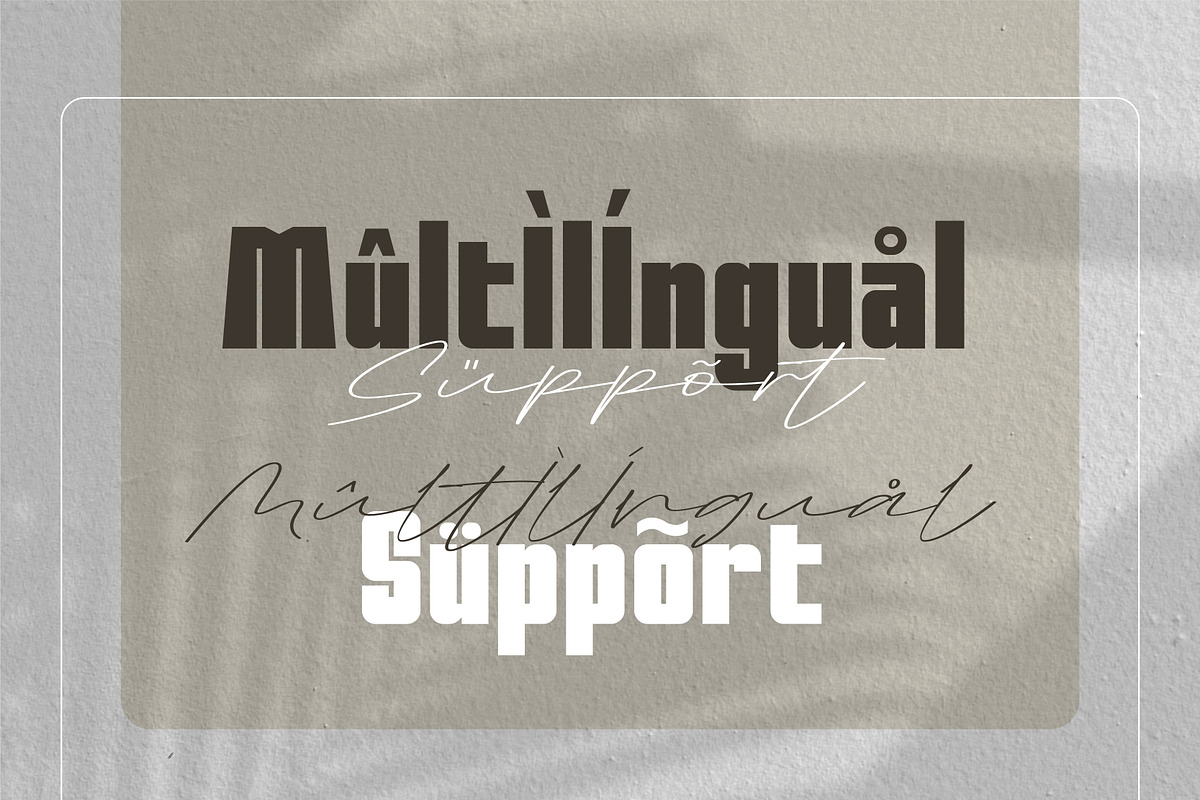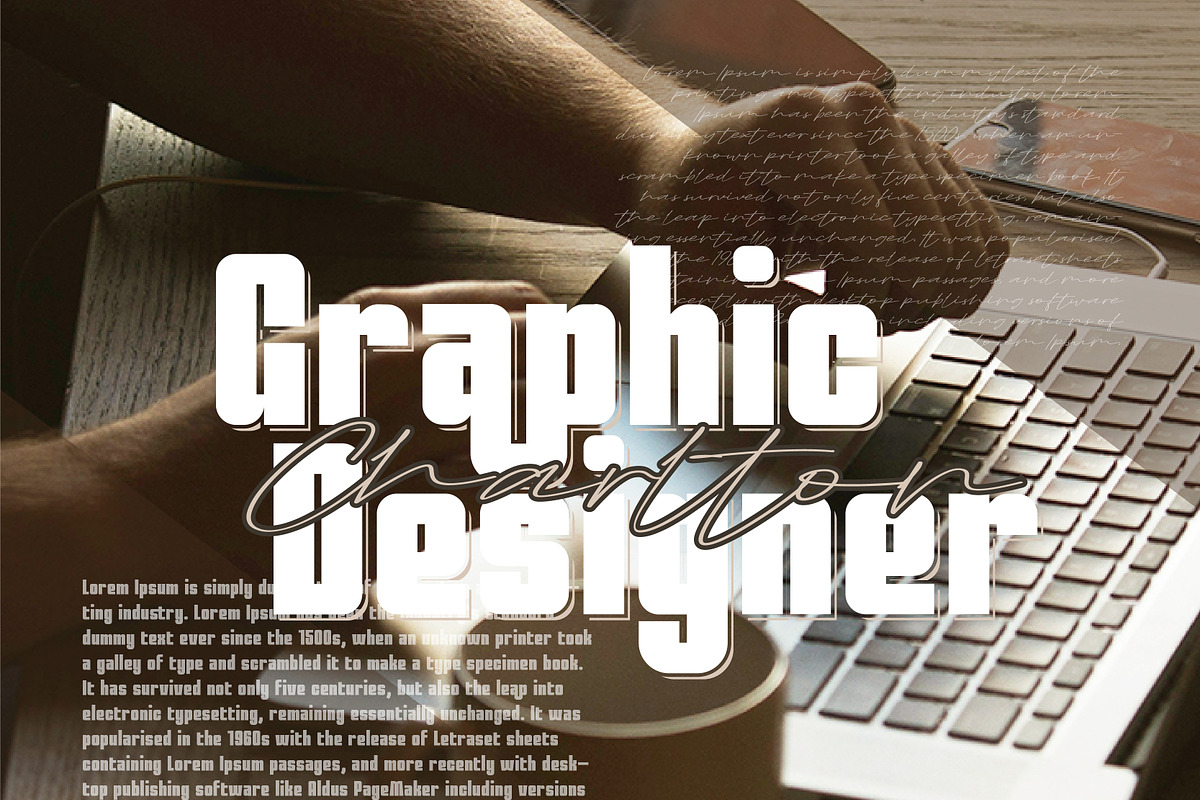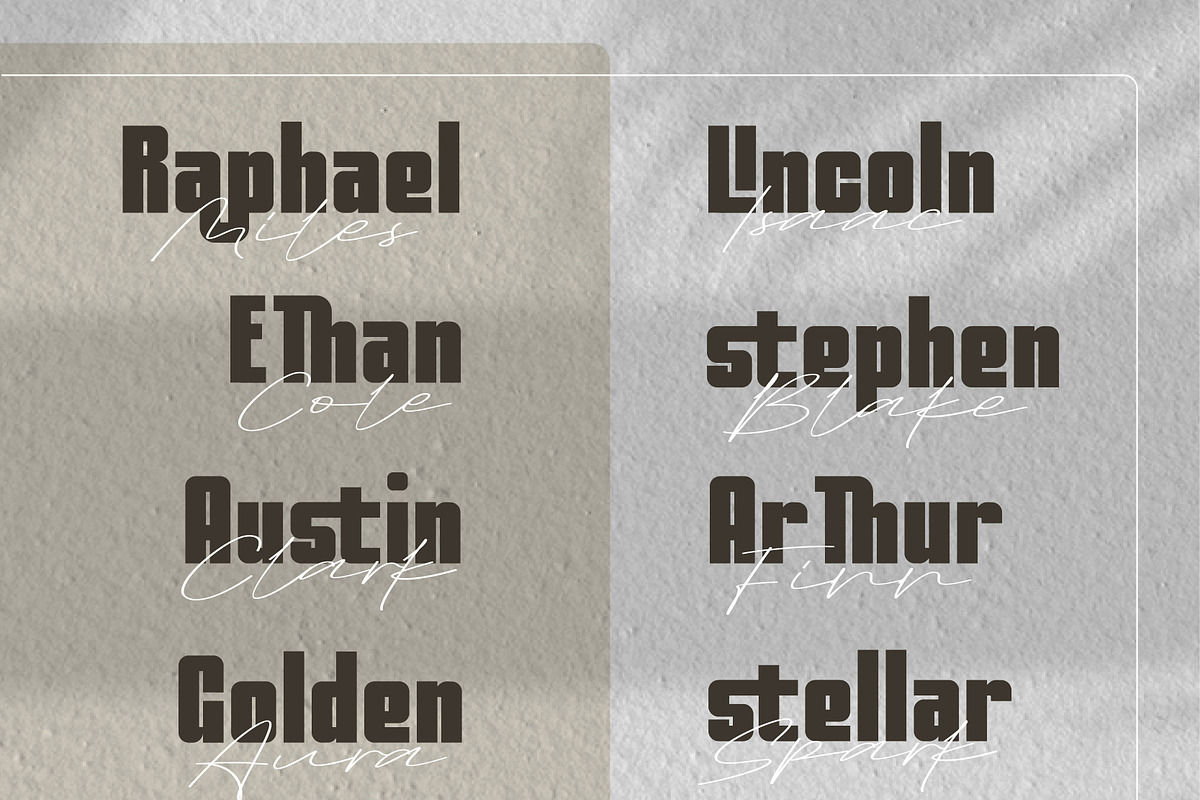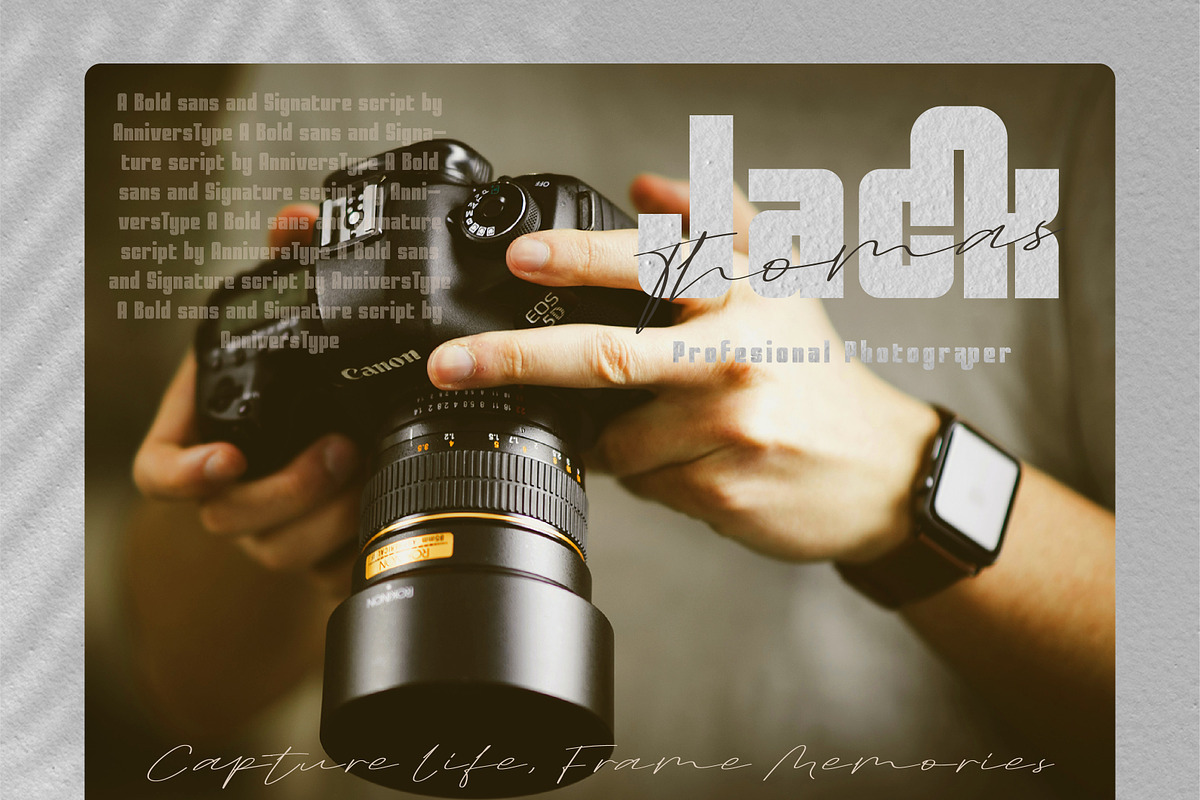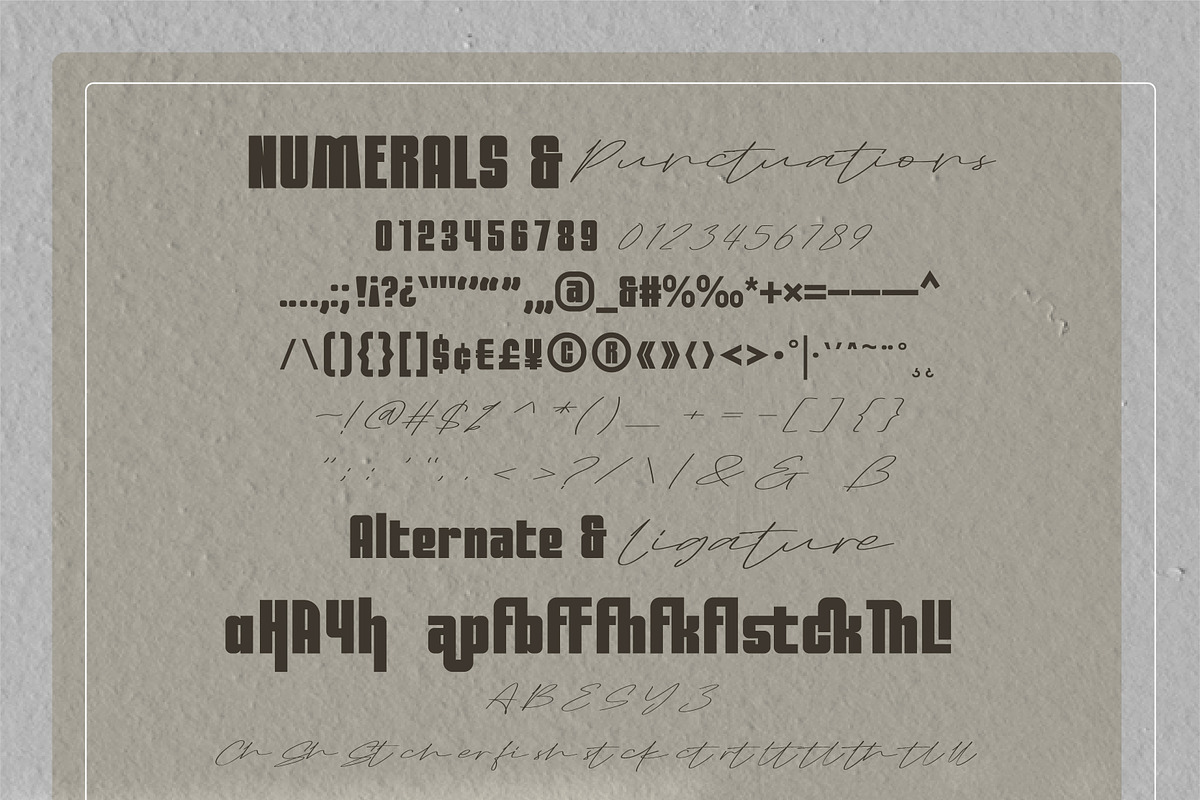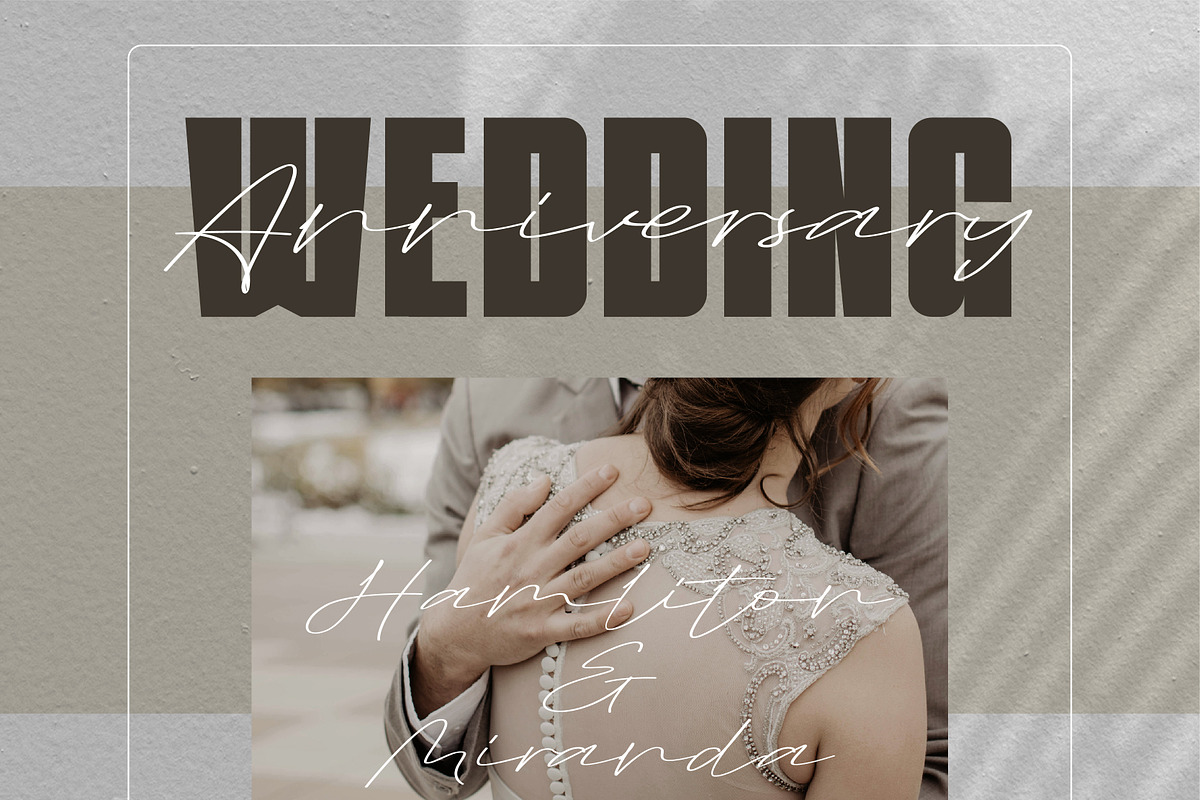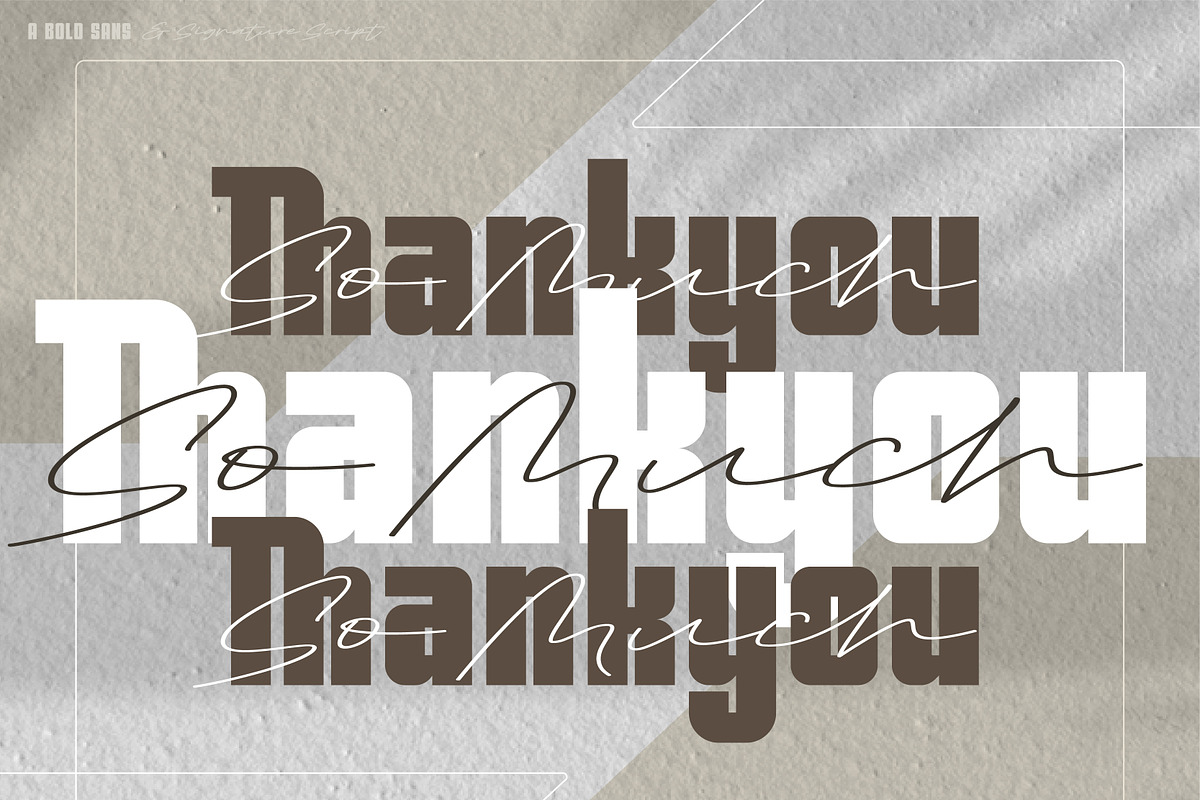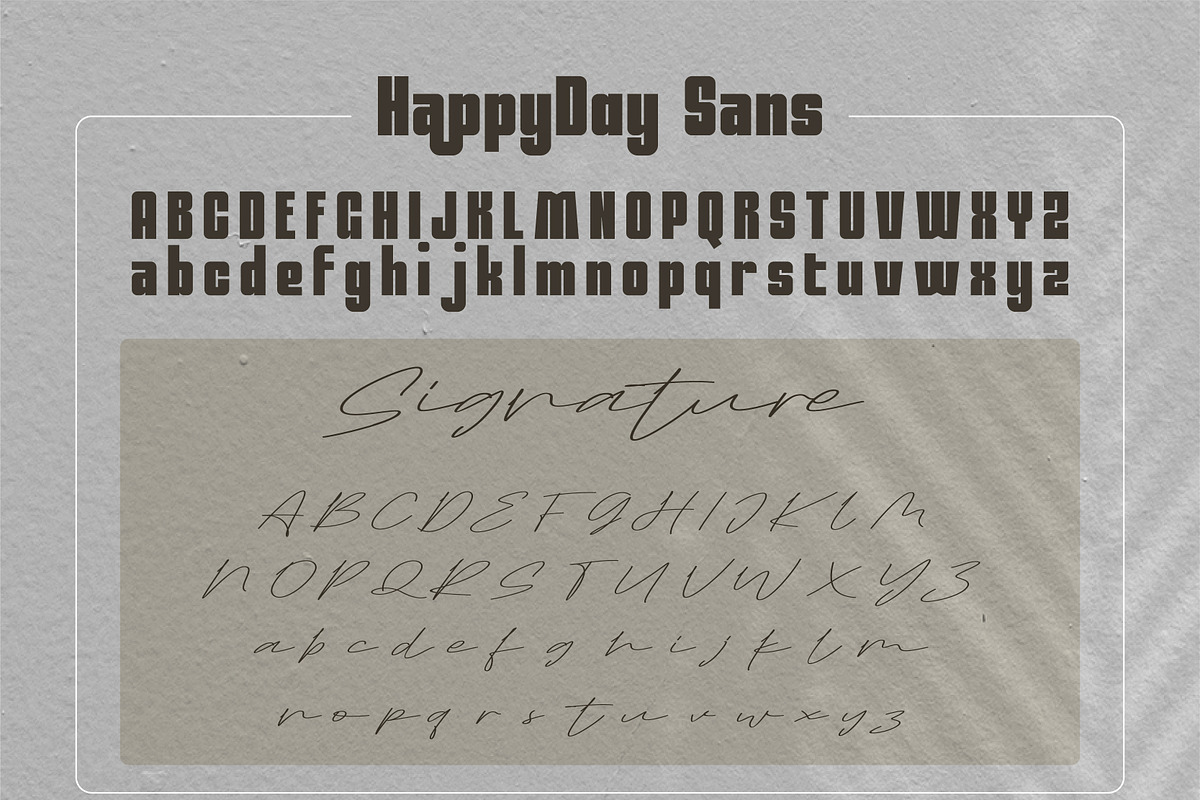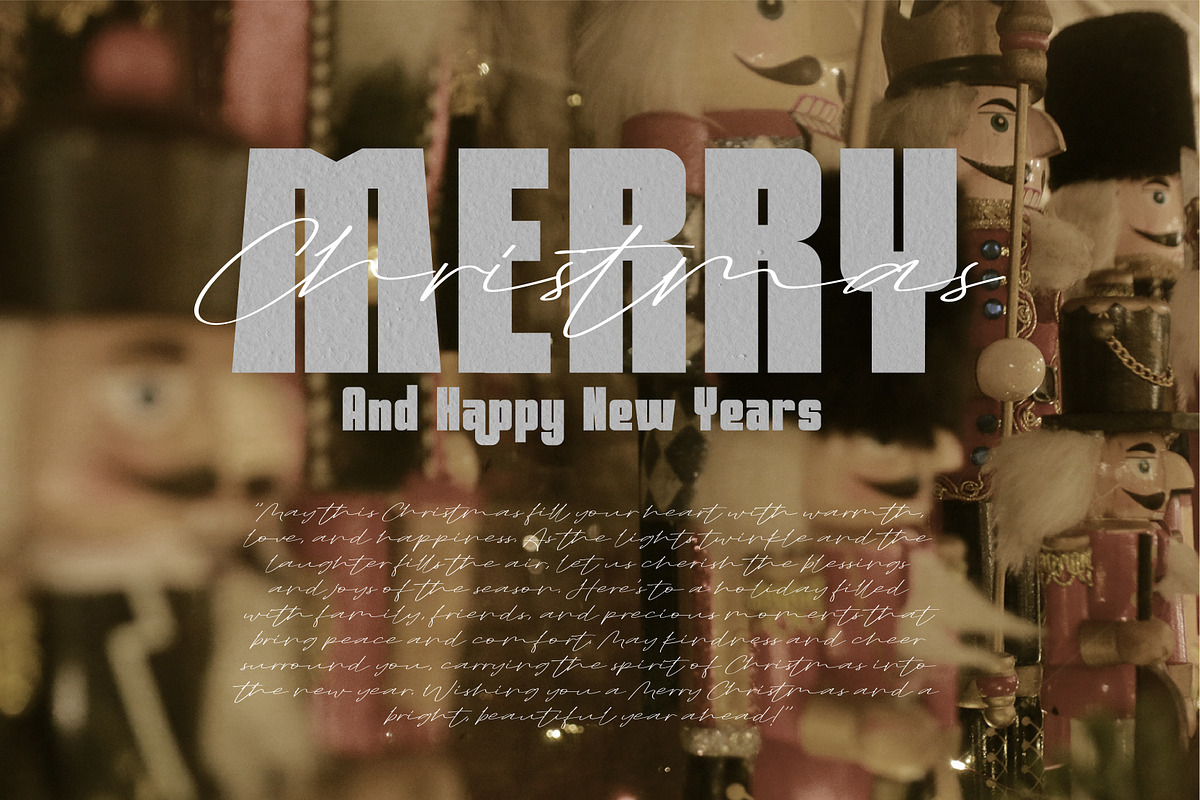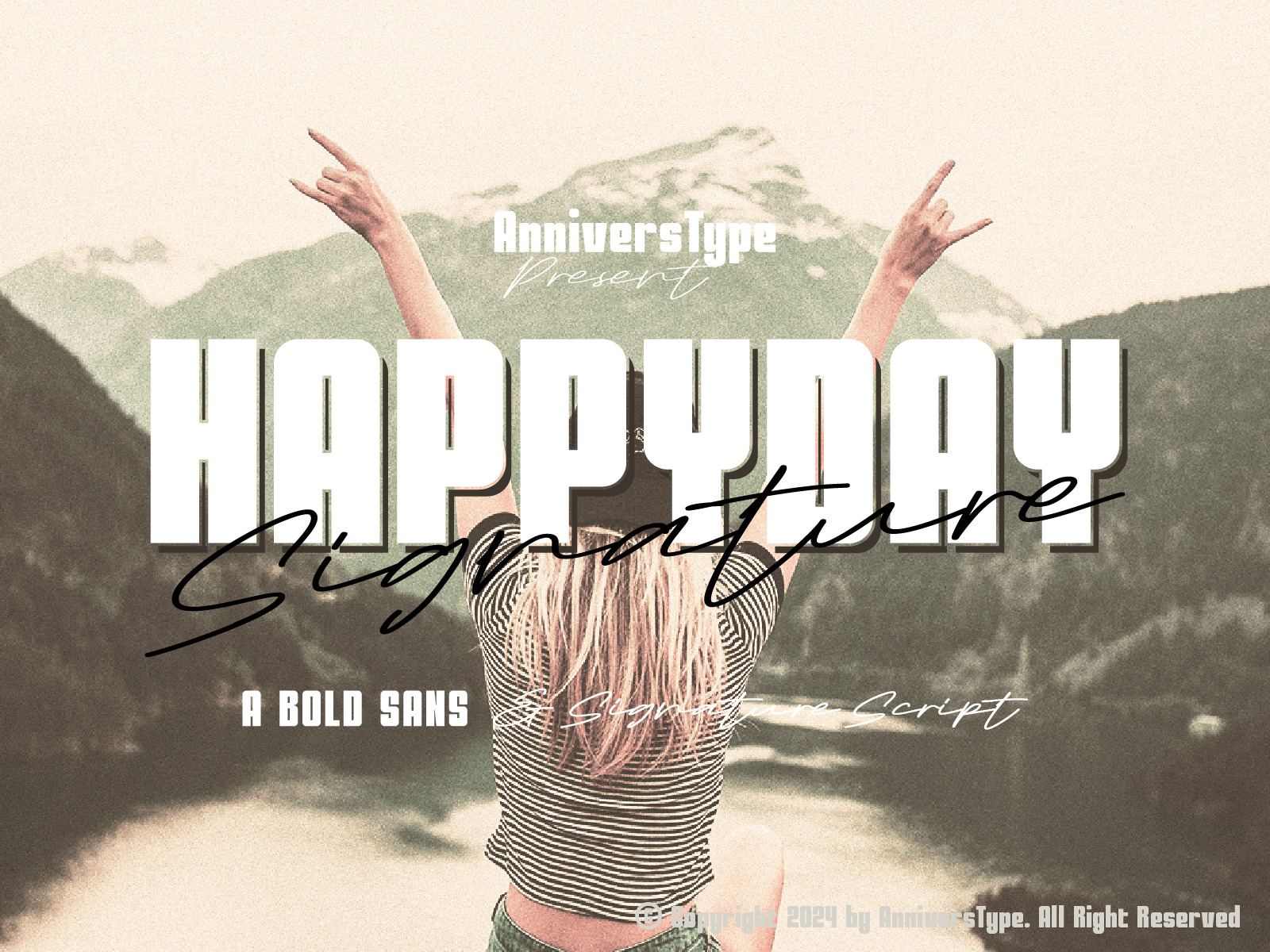
Happyday Script & Sans - Font Duo
Happyday Script & Sans is a versatile font pairing that combines a bold sans serif with a signature-style script, This combination not only enhances visual appeal but also provides an engaging contrast between clean, modern elements and more organic, artistic ones.
Happyday Script & Sans Can enhance the visual appeal of your design project. The bold sans offers readability and a modern feel, while the script adds a personal and artistic touch. This combination is not only visually appealing but also effective in conveying a message to the audience., perfect for branding, logos, invitations, quotes, and social media.